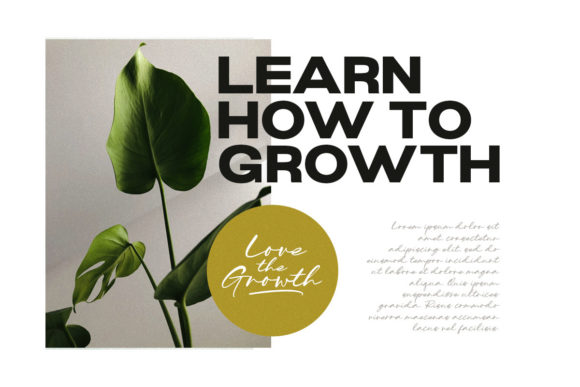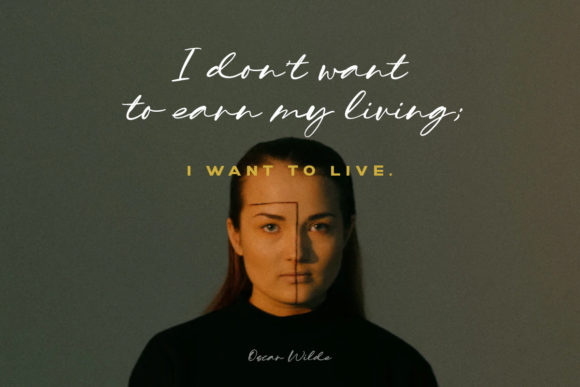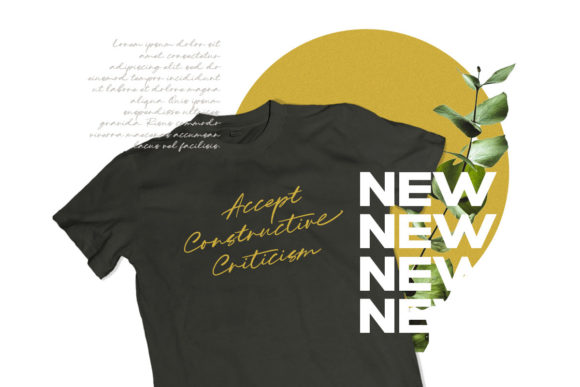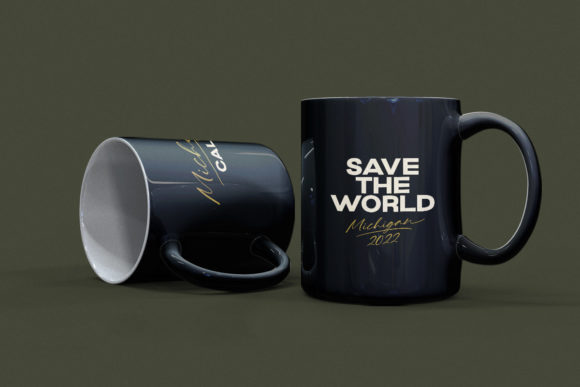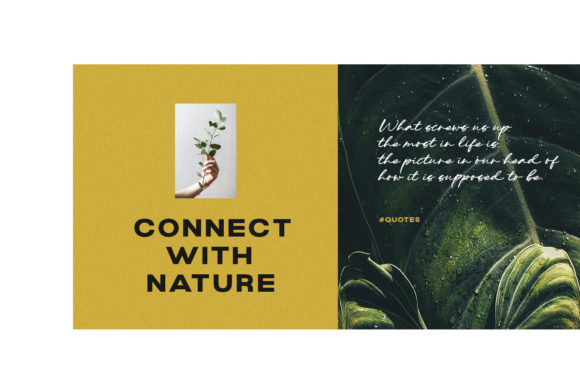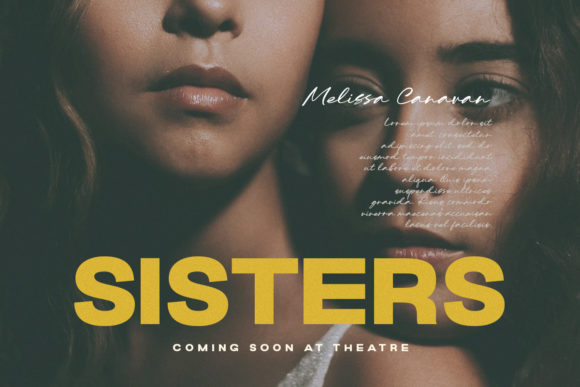
Discover the Versatility of Grand Wilson Font: Your New Go-To Typeface
Are you tired of using the same old fonts for your designs? Look no further than the Grand Wilson Font, an incredibly cool and flexible duo font that combines a sleek sans serif with an elegant script. This fantastic font is suitable for a wide variety of designs, thanks to its neat and simple style, making it the perfect addition to your typography arsenal.
What Makes Grand Wilson Font So Special?
Grand Wilson Font is not just any ordinary font. Its unique combination of sans serif and script styles makes it an incredibly versatile typeface that can be used for a multitude of design projects. Whether you’re working on a modern and edgy design or a more traditional and elegant one, Grand Wilson Font has got you covered.
Key Features of Grand Wilson Font
- Dual Style: Grand Wilson Font comes with two distinct styles: a clean and crisp sans serif and a beautiful, flowing script. This allows you to mix and match the styles to create stunning contrast and visual interest in your designs.
- Neat and Simple: The font’s neat and simple style makes it easy to read and perfect for use in a wide range of applications, from digital media to print materials.
- Flexibility: Grand Wilson Font is incredibly flexible, making it suitable for use in various design projects, including logos, branding, packaging, posters, and more.
- Legibility: The font’s clear and legible design ensures that your message gets across effectively, whether you’re using it for headings, body text, or captions.
Who Can Benefit from Grand Wilson Font?
Grand Wilson Font is a fantastic addition to any designer’s toolkit, regardless of their level of experience or area of specialization. Here are some professionals who can benefit from using this amazing font:
- Graphic Designers: Whether you’re working on a logo, brochure, or website, Grand Wilson Font provides a versatile and stylish solution for your typography needs.
- Crafters and Makers: If you’re creating handmade products, such as jewelry, crafts, or artwork, Grand Wilson Font can add a touch of elegance and sophistication to your branding and packaging.
- Digital Artists: For digital artists and illustrators, Grand Wilson Font offers a wide range of creative possibilities, from digital paintings to typographic illustrations.
How to Use Grand Wilson Font in Your Designs
Using Grand Wilson Font in your designs is easy and straightforward. Here are some tips to get you started:
- Pair it with Other Fonts: Experiment with pairing Grand Wilson Font with other fonts to create stunning contrast and visual interest.
- Play with Sizes and Styles: Don’t be afraid to experiment with different font sizes and styles to add hierarchy and emphasis to your designs.
- Use it for Headings and Body Text: Grand Wilson Font is suitable for use in both headings and body text, making it a versatile solution for a wide range of design projects.
In conclusion, Grand Wilson Font is an incredibly cool and flexible duo font that is sure to become your new go-to typeface. With its neat and simple style, versatility, and legibility, this font is perfect for a wide range of design projects. Whether you’re a graphic designer, crafter, or digital artist, Grand Wilson Font is a fantastic addition to your toolkit.
Get Ready to Elevate Your Designs with Grand Wilson Font
So why wait? Discover the power of Grand Wilson Font and take your designs to the next level. With its unique combination of sans serif and script styles, this font is sure to inspire your creativity and help you create stunning designs that stand out from the crowd.